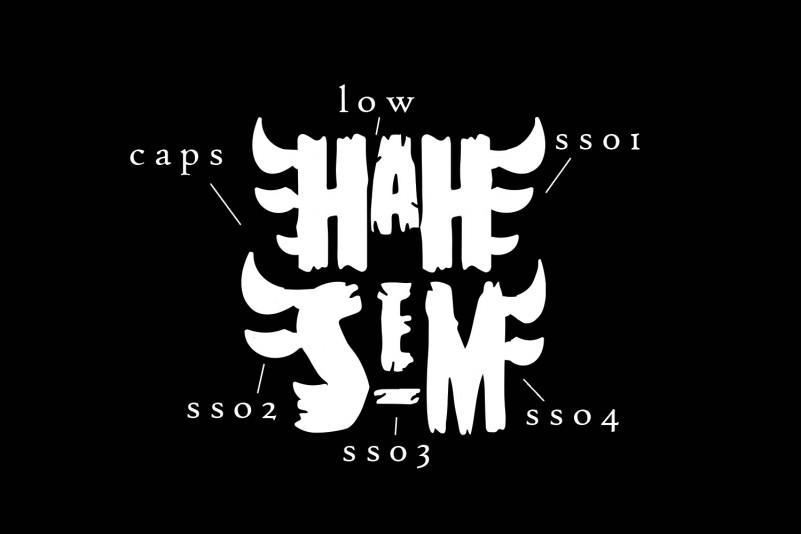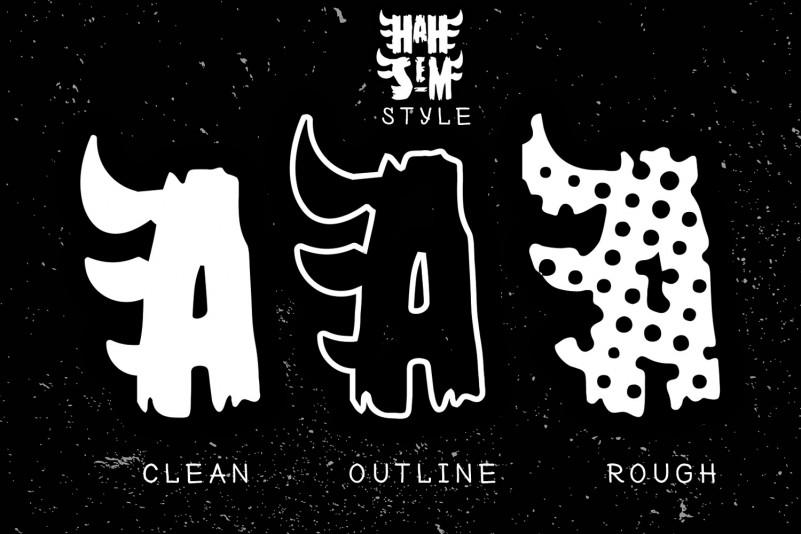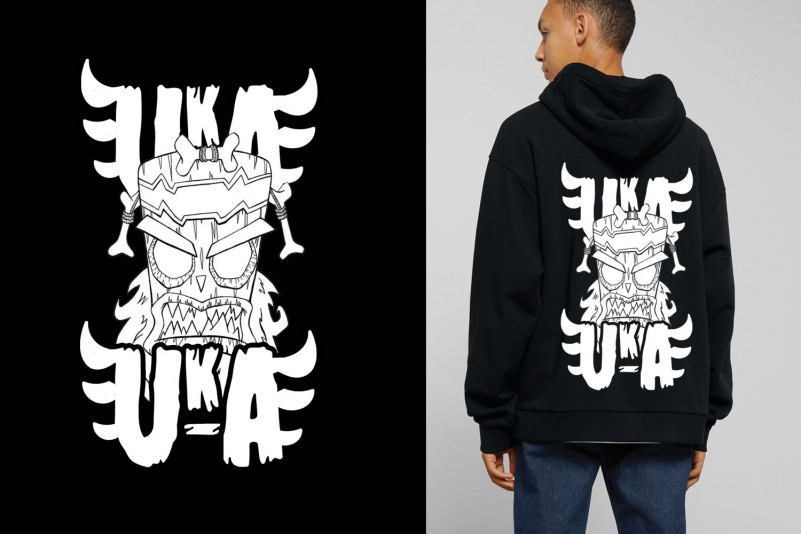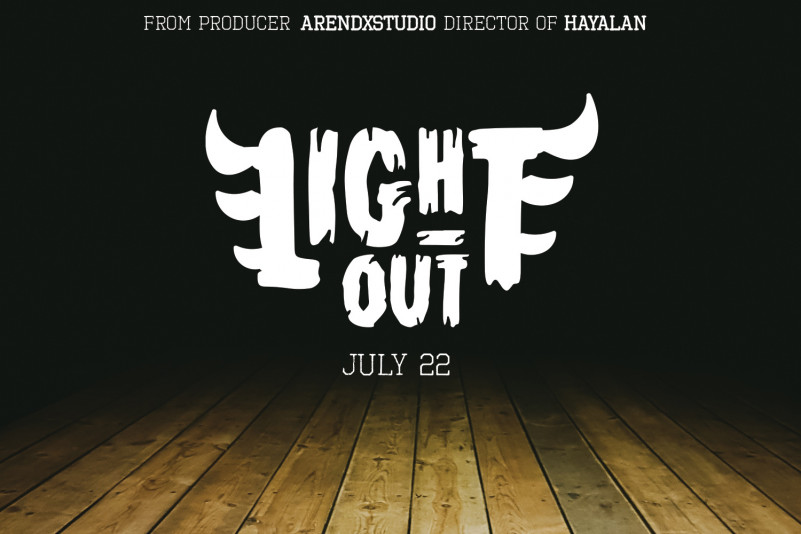
Hah Sem Display Font
Hah Sem is a strong and bold font inspired by the crash bandicont game uka uka character that is synonymous with prehistoric times and cultural customs